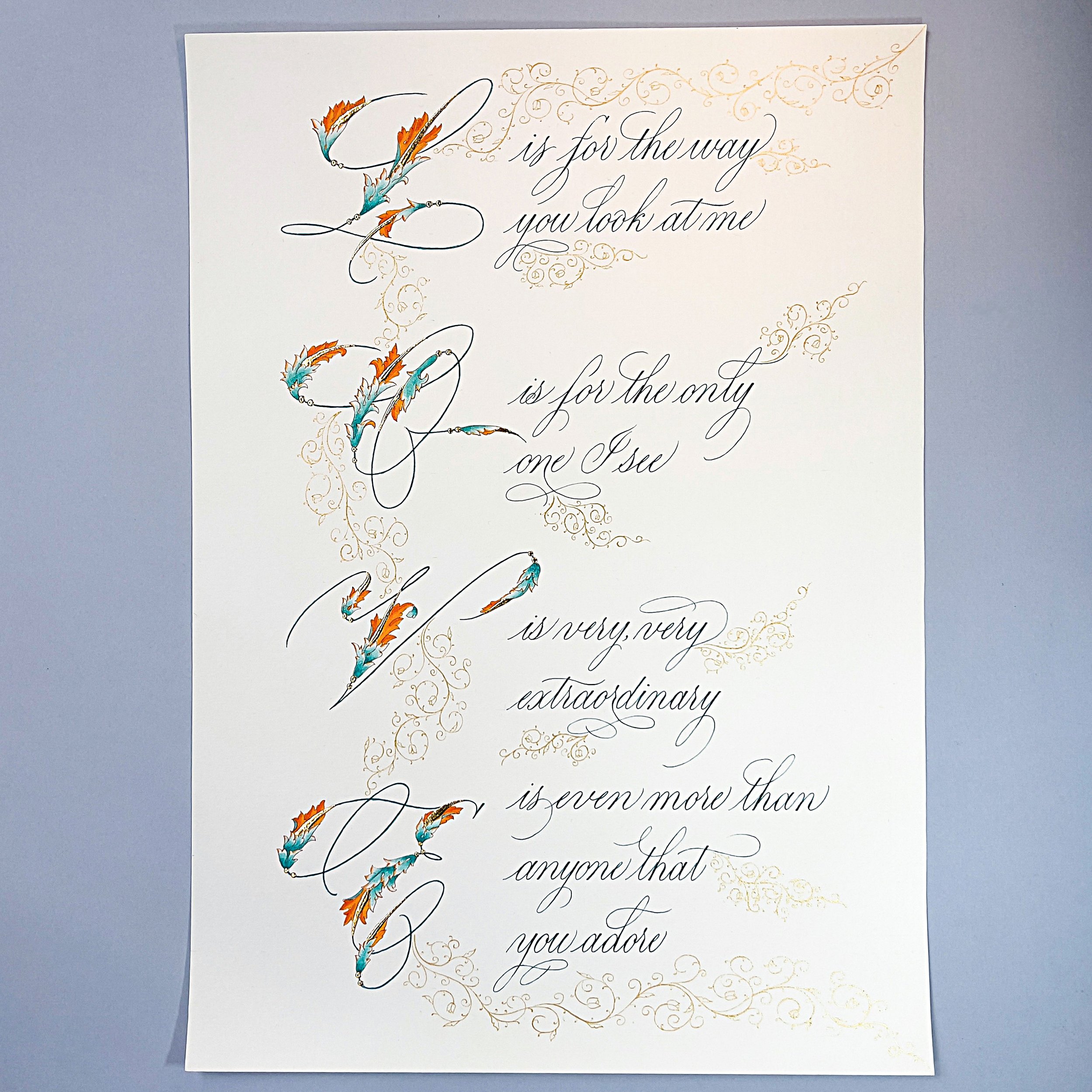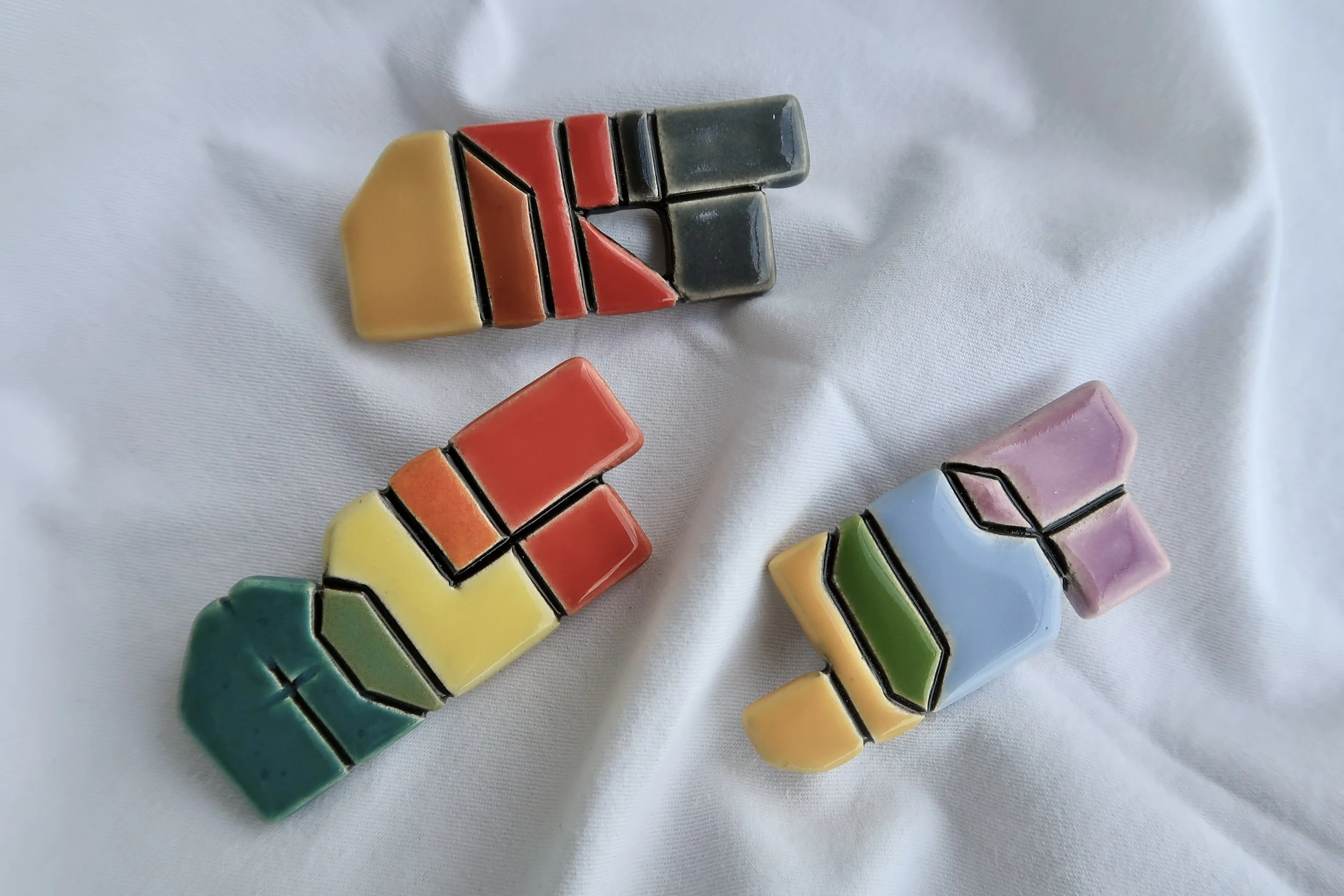
Symbiosis II: The Mentoring Journey
The participants from The Art of Letters mentoring initiative have attained a certain level of skill through years of diligence and hard work. Now in a fresh learning environment, they have pushed boundaries to see creative breakthroughs and create works of art. Led by Gemma Black, Heather Held and Yukimi Annand, eight participating artists from different parts of the world have come together to showcase a body of works for Symbiosis: The Mentoring Journey, including Bernice van Overbeek, Tan Su Sian, Mabel Khi, Rachel Koh, Nathalie Mora, Bakhyt Kadyrova, Qiana Liao, Nina Tran.
Gemma Black’s group pushed personal boundaries and crushed challenges to produce innovative works never attempted before.
Heather Held’s group produced stunning works of calligraphy art by deriving inspiration from nature and deeply personal history.
Yukimi Annand’s group worked with the theme “Wearable Calligraphy - Calligraphic Textures” and created highly desirable items of clothing and accessories.
Pushing boundaries: Innovative calligraphy
Led by Gemma Black, showcasing works by Bernice van Overbeek and Tan Su Sian.
Calligraphy Art: Inspirations from nature
Led by Heather Held, showcasing works by Mabel Khi, Rachel Koh and Nathalie Mora.
HEATHER HELD | The Galloper
HEATHER HELD | B is For Bluebirds
HEATHER HELD | Observer Owl
HEATHER HELD | Fairy Tale Page
MABEL KHI | Summer is Tomorrow
RACHEL KOH | Opalescent I
RACHEL KOH | Opalescent III
RACHEL KOH | Opalescent II
NATHALIE MORA | The hummingbird exploration
NATHALIE MORA | We're better together
NATHALIE MORA | L.O.V.E
Wearable Calligraphy - Calligraphic Textures
Led by Yukimi Annand, showcasing works by Bakhyt Kadyrova, Qiana Liao and Nina Tran.
YUKIMI ANNAND | “Imagine” Textile Pattern
YUKIMI ANNAND | “Imagine” Burgundy Dress
YUKIMI ANNAND | “Imagine” Hand Drawn Fabric Dress
YUKIMI ANNAND | Printed Products - Bandana/Tenugui/Apron
YUKIMI ANNAND | An Ice Texture for Golf Wear
BAKHYT KADYROVA | Stamping linocut forms
BAKHYT KADYROVA | Blouse: focus on outlines
BAKHYT KADYROVA | Tote bag: flat brush strokes pattern
BAKHYT KADYROVA | Shirt: combination of texture and form
BAKHYT KADYROVA | Brooches (Various designs)
BAKHYT KADYROVA | Hot dishes mats (Various designs)
BAKHYT KADYROVA | Tote bags (Various designs)
QIANA LIAO | “Landscape” Short Caftan
QIANA LIAO | A Trail of Fallen Leaves
QIANA LIAO | Accordion Fan
QIANA LIAO | “Downs” Jewelry Collection
QIANA LIAO | Silk Hair Band
QIANA LIAO | Square Silk Scarfs
NINA TRAN | “Create” Dangling Wood Earrings
NINA TRAN | “Love” Earrings
NINA TRAN | Assorted Canvas Tote Bags
NINA TRAN | “Nullius In Verba” Scarves
NINA TRAN | Calligraphic Texture T-Shirt Mock-Ups